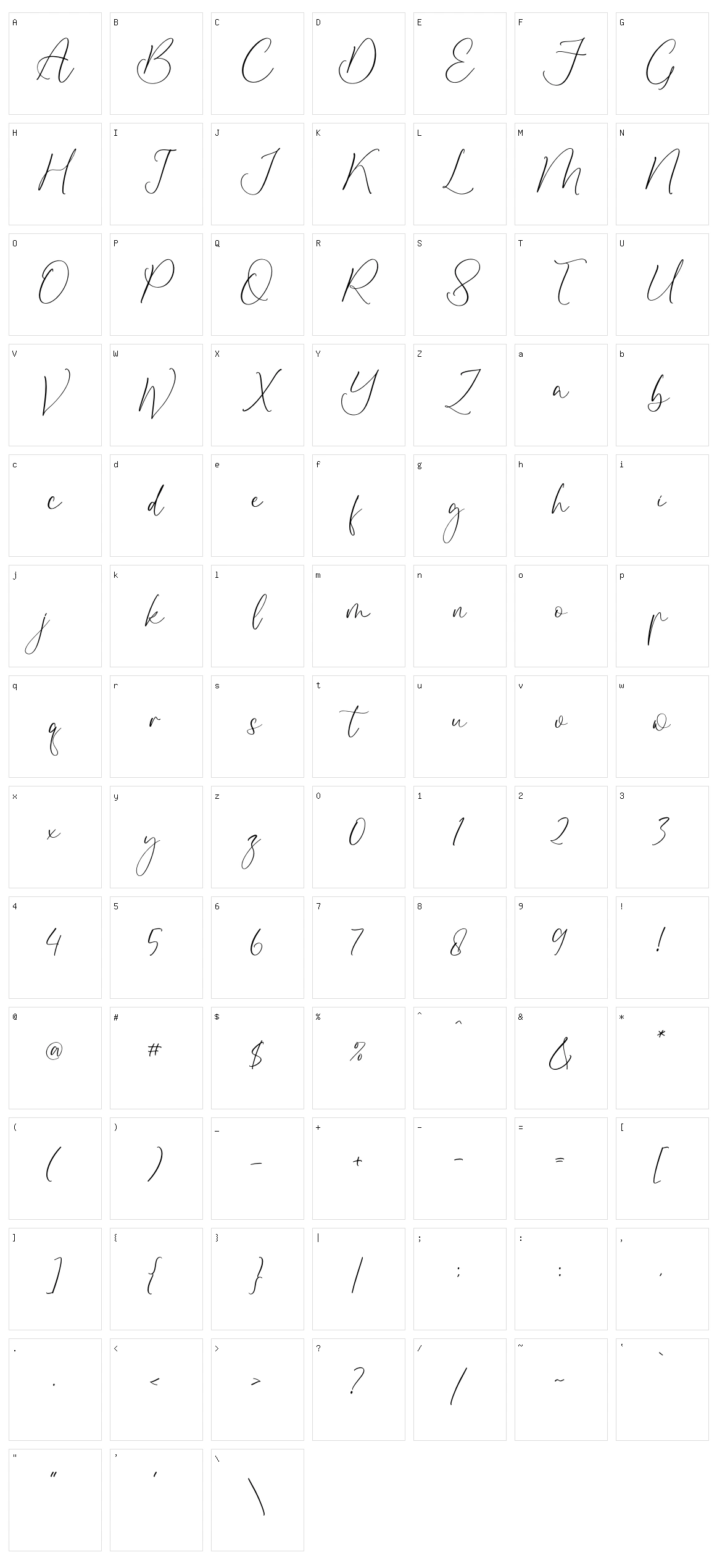
The free font Disttoris Andarlin is carefully designed by Storytype Studio, showcasing a thoughtful balance of creativity and usability and falls under the Script font style. When you download the ZIP file, it contains only 55.32 KB of font files, making it lightweight and quick to download. Please review the license details below to understand permitted usage and distribution rights. If license information is not available, we recommend using this font for personal projects only or contacting the author directly for commercial usage permissions.